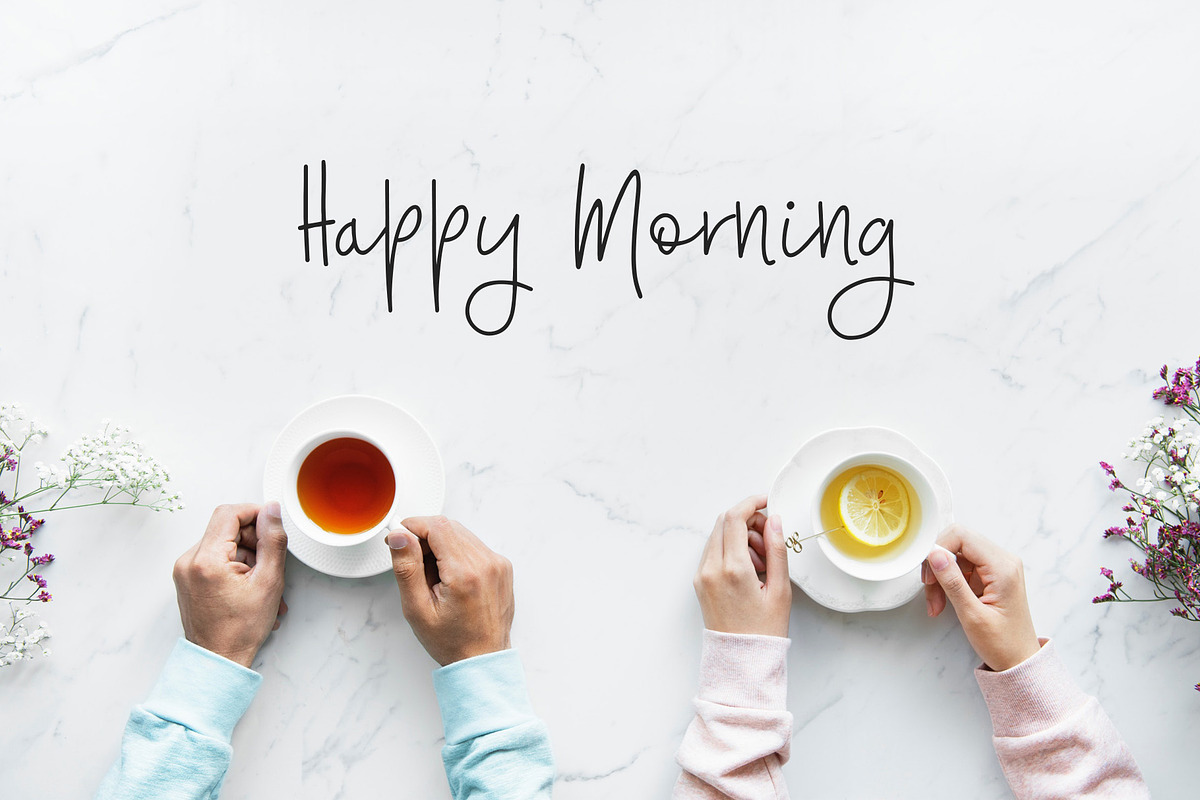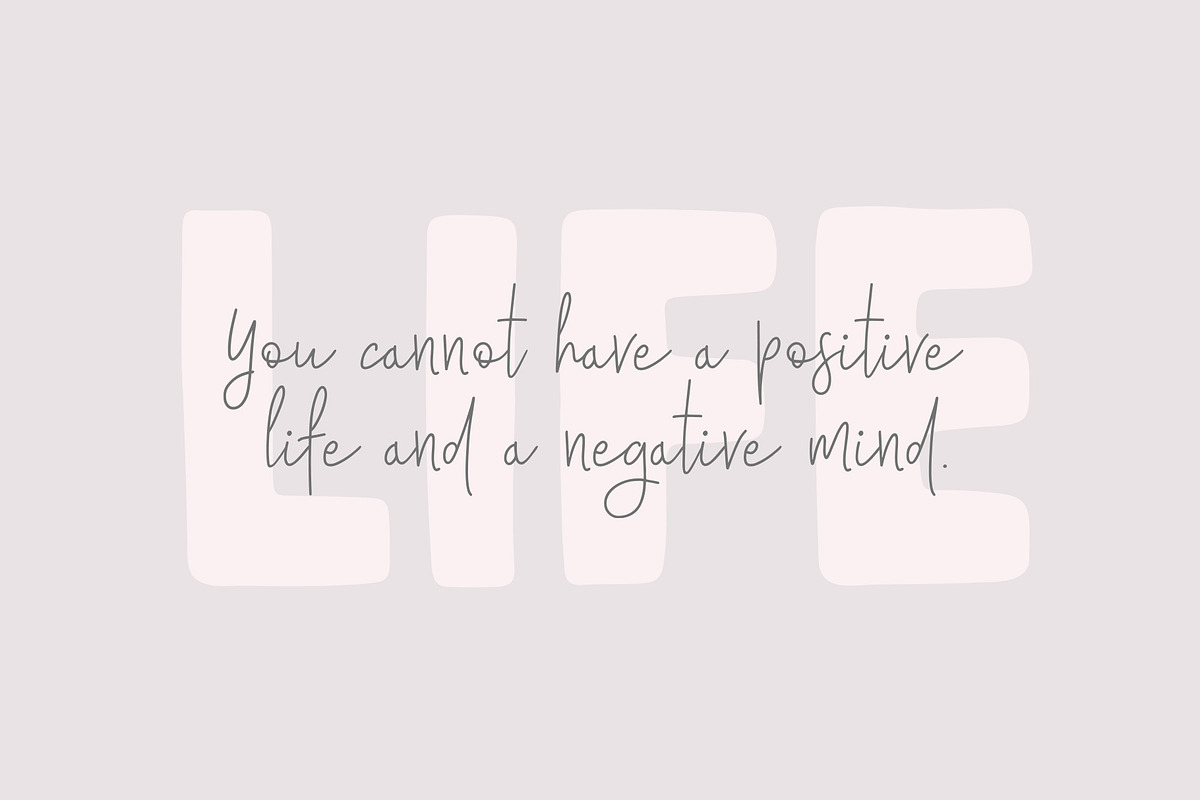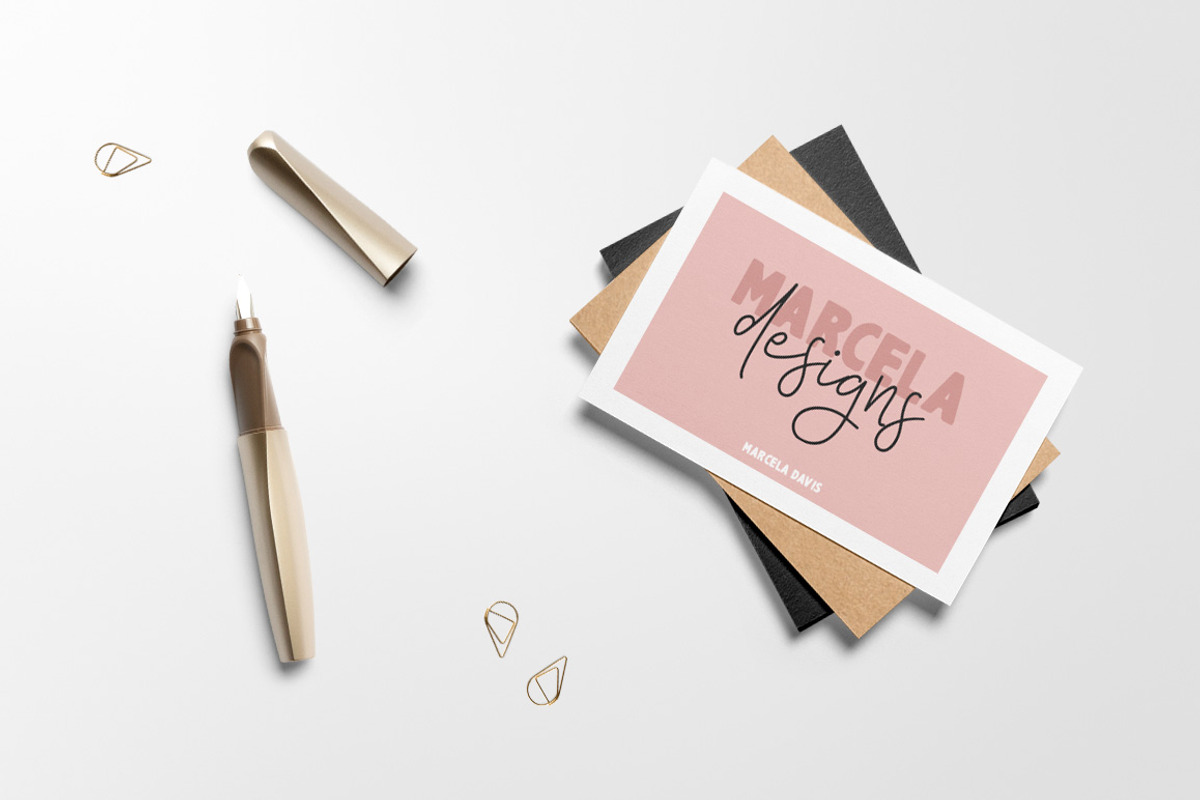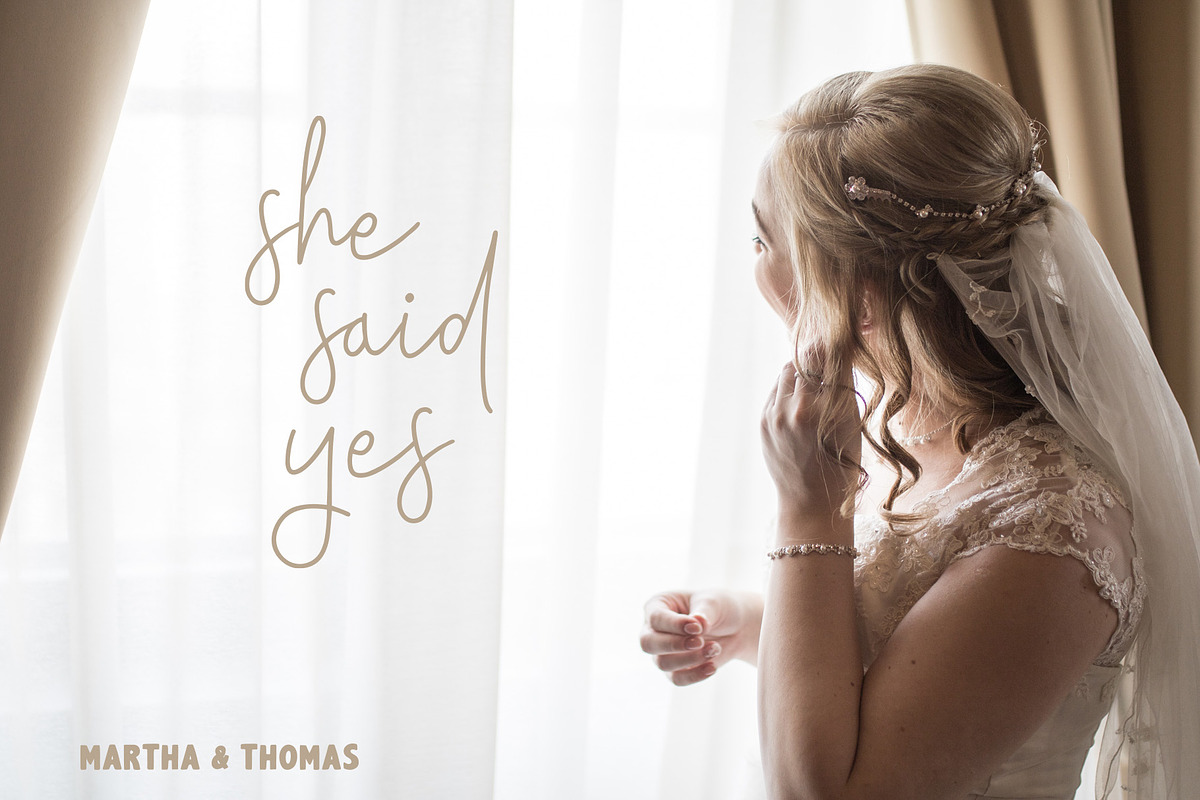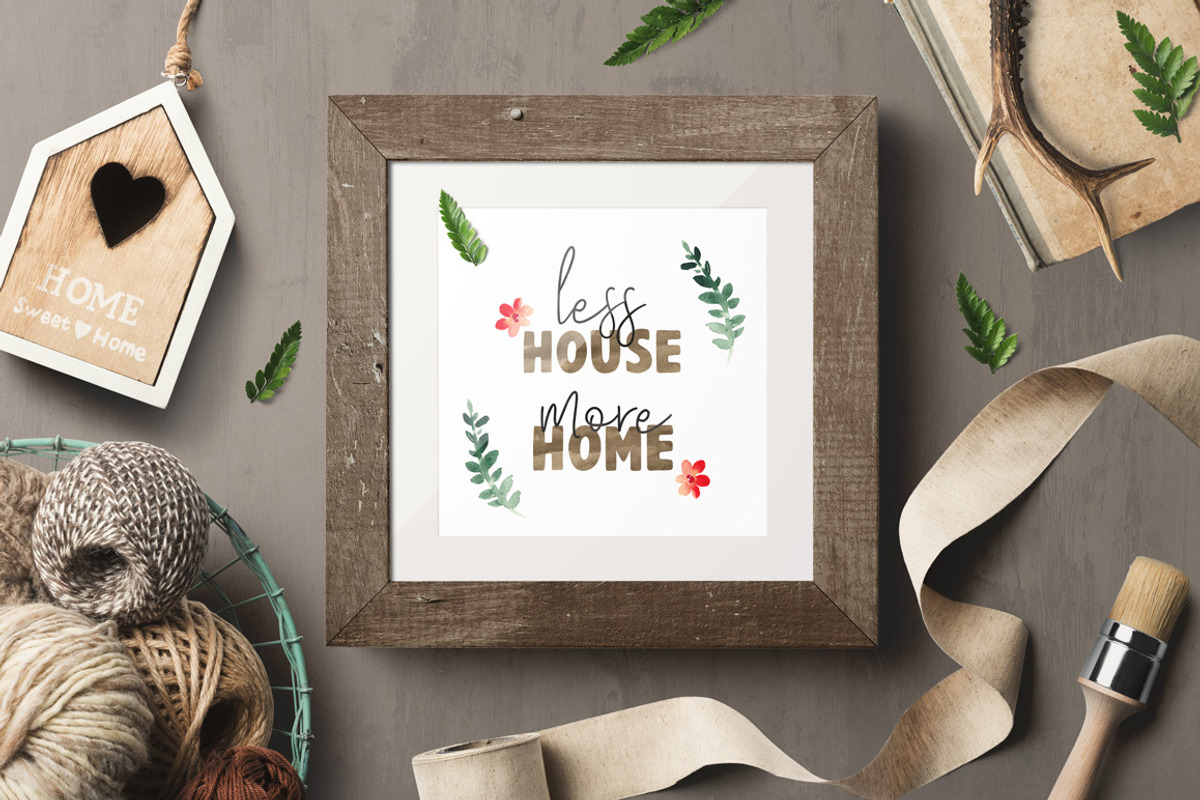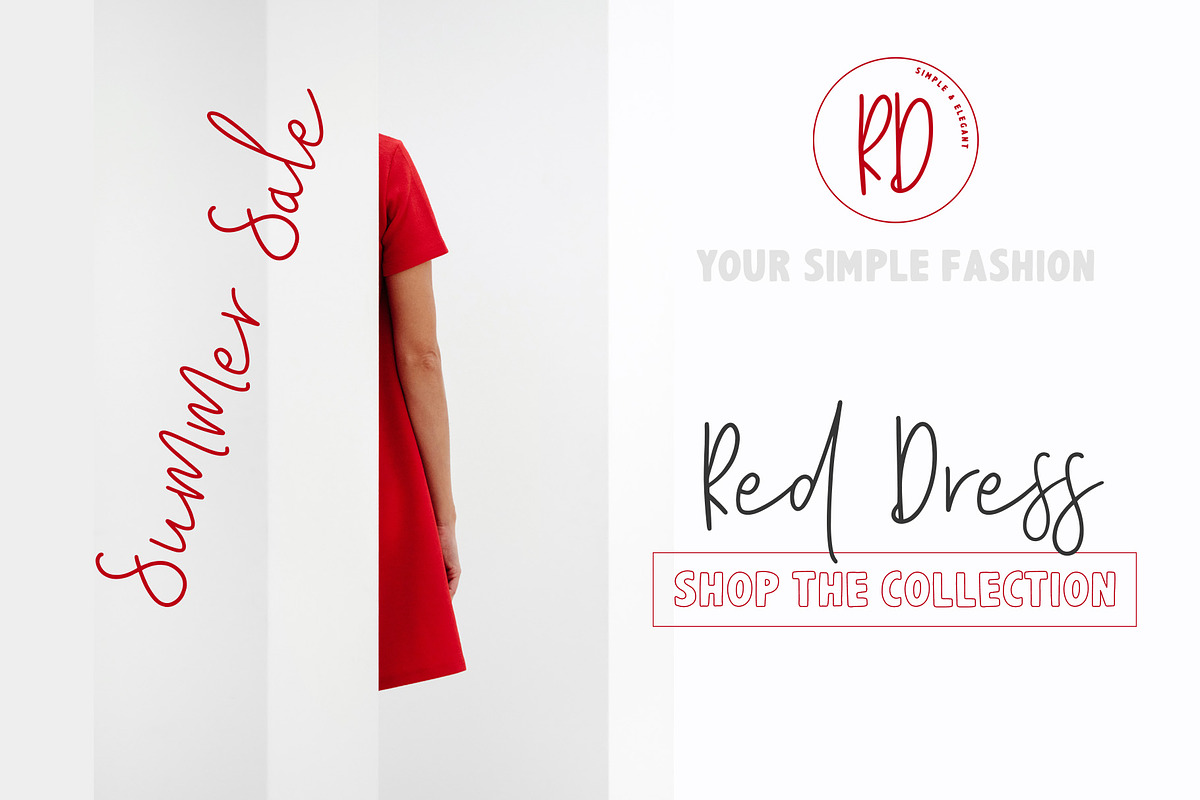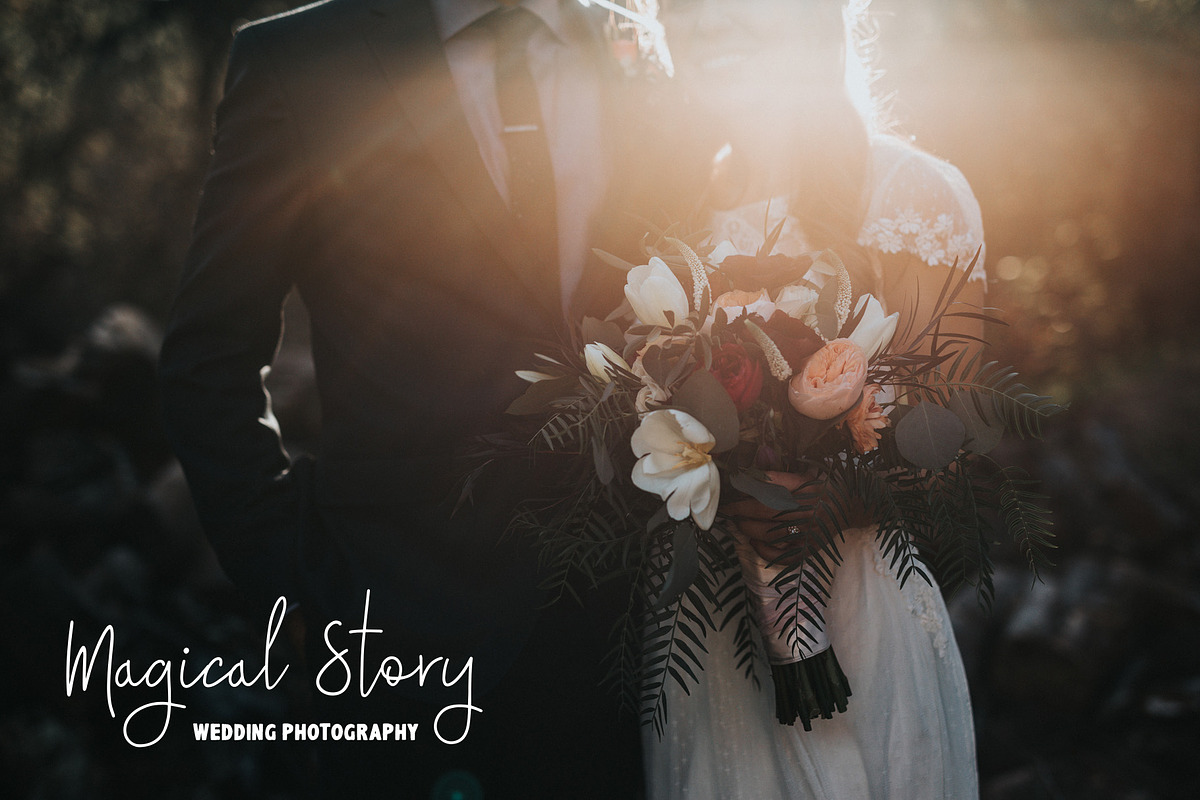
Simone & Nadia Font Trio
Say hello to the brand new Simone & Nadia Font Trio :)
Simple and elegant font family to make your typographic work awesome!
Perfect for greeting cards, branding projects, stationery design, social media, packaging, homeware designs, magazine layouts, prints and more!
Simone & Nadia Font Trio by PeDe Designs fits naturally into Branding, posters, packaging, typography.